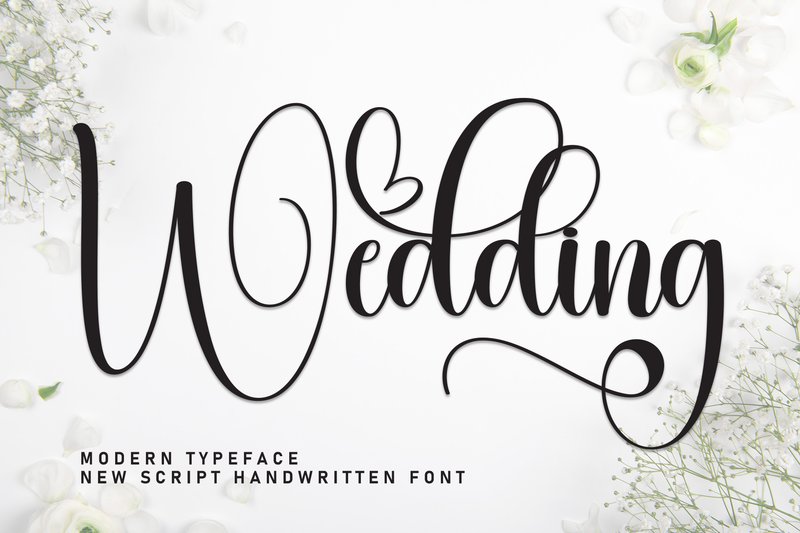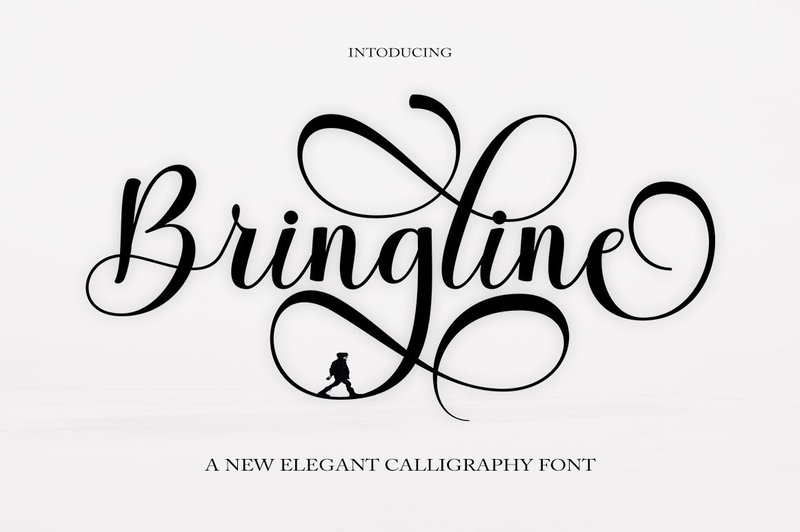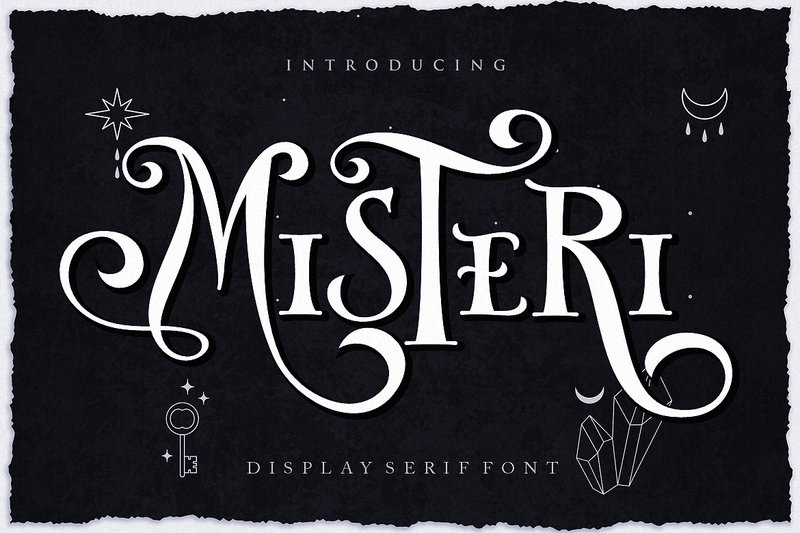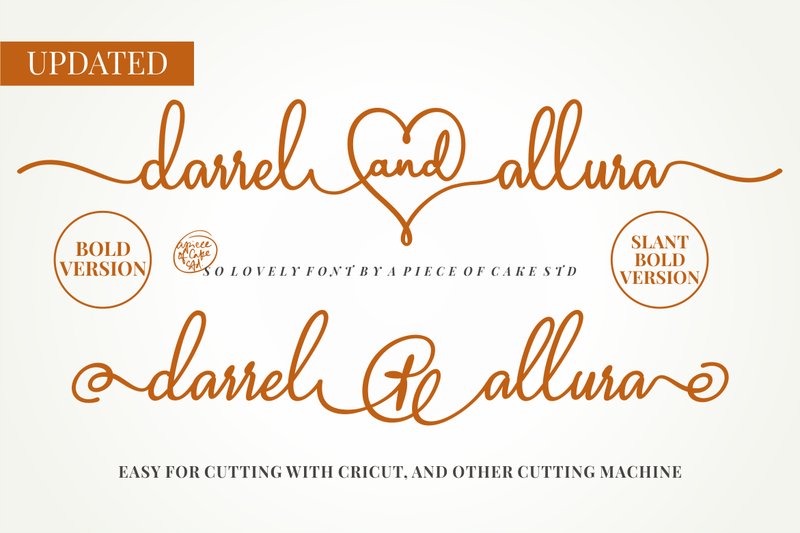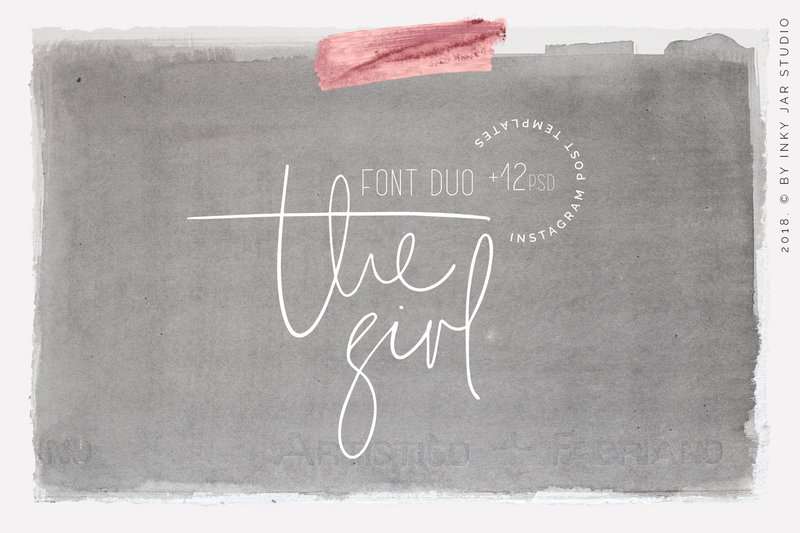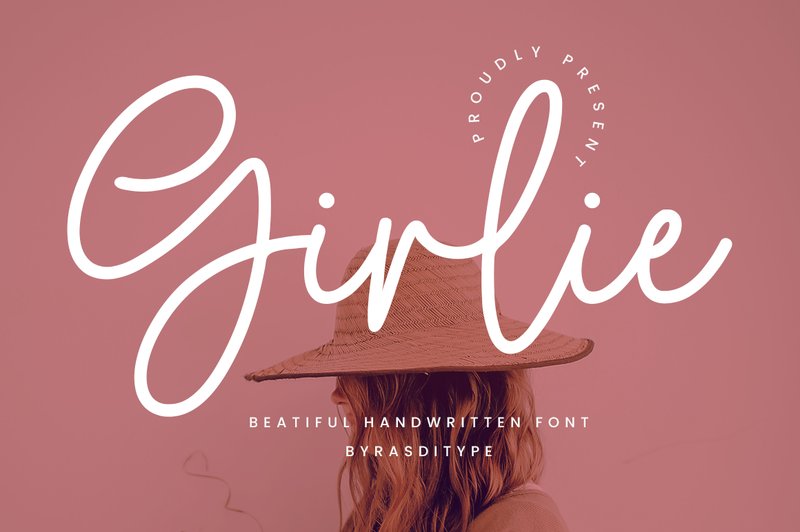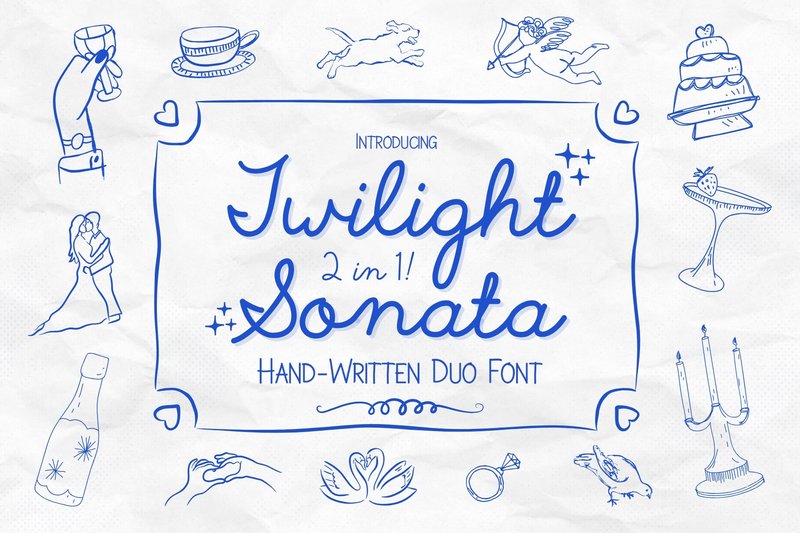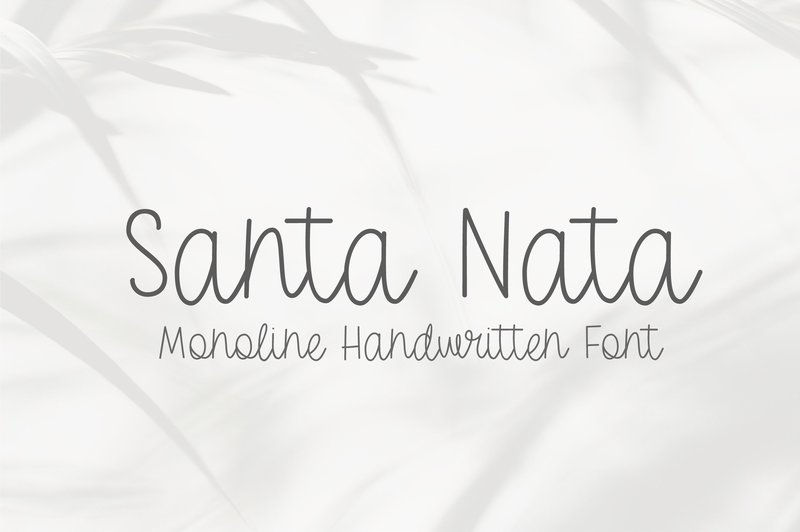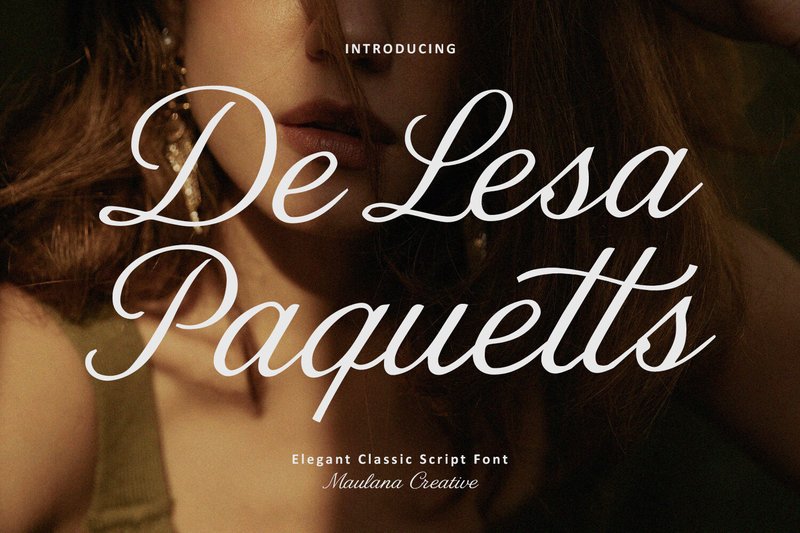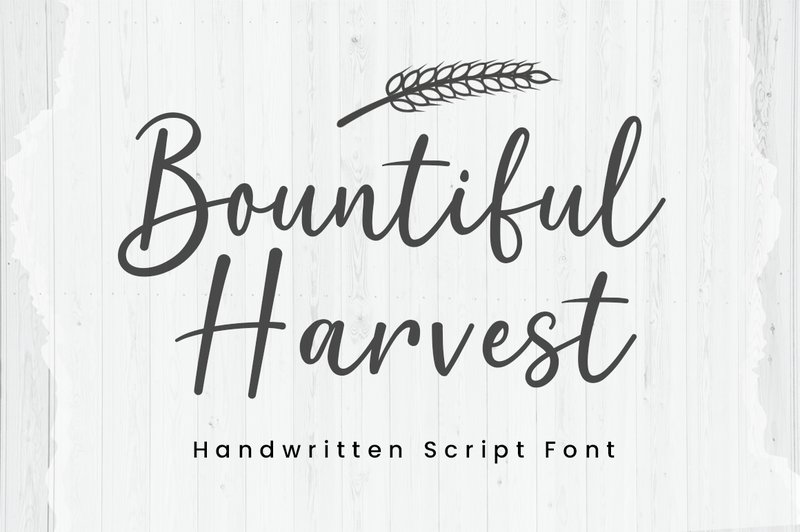
In the hyper-visual landscape of 2026, a generic font just won’t cut it. Instagram is more than just images; it’s a full-fledged branding platform where typography plays a crucial role in capturing attention. From the resurgence of retro-futuristic styles to the timeless appeal of organic, handwritten scripts, the right font is your secret weapon for creating a cohesive and memorable aesthetic. We’ve sifted through the noise to bring you this definitive collection of 79 popular, on-trend fonts that will elevate your Stories, Reels, and graphics, ensuring your content stands out and stops the scroll.
1. Wedding (by andikastudio)
Wedding (by andikastudio) is a testament to the studio’s mastery of refined typography, delivering a script font that feels both personal and incredibly polished. This font carries the graceful, flowing energy of modern calligraphy, with delicate connections and elegant swoops that mimic an artist’s hand. It strikes a beautiful balance between readability and decorative flair, making it a sophisticated choice for designers who want to add a touch of timeless romance to their work without sacrificing clarity. Its inherent charm is perfect for creating content that feels both high-end and heartfelt.
- Graceful, flowing baseline with authentic calligraphic movement
- Elegant letterforms with high-contrast strokes
- A full suite of uppercase and lowercase characters with a hand-drawn feel
- Includes stylistic alternates and ligatures to enhance its natural look
- Elegant text overlays for Instagram posts and stories
- Branding for wedding photographers, event planners, and luxury boutiques
- Designing stunning invitations, save-the-dates, and menus
- Creating signature-style logos and watermarks
2. Bringline (by hrzstudio92)
Bringline (by hrzstudio92) If you are looking for a font that feels both personal and polished, Bringline is an absolute dream. This magical script dances across the screen with a fluid, calligraphic grace that feels handwritten yet refined. Its sweeping ascenders and descenders create a captivating rhythm, turning simple text into a true piece of art and adding a touch of sophisticated charm to any visual story.
- Elegant, flowing letterforms with a calligraphic touch.
- Includes a full set of stylistic alternates and ligatures for custom flair.
- Creating signature-style logos and sophisticated brand watermarks.
- Designing heartfelt Instagram quotes and elegant story overlays.
- Crafting bespoke wedding invitations, thank you cards, and event signage.
3. Misteri (by HansCo)
Misteri (by HansCo) With its exquisitely fine strokes and an incredibly delicate feel, this script font is pure elegance in digital form. Misteri unfolds across the screen with gorgeous, mysterious swashes and intricate ligatures that feel both timeless and enchantingly modern. It’s a versatile display font that moves with a graceful, calligraphic flow, making it perfect for adding a touch of sophisticated magic to any design. It doesn’t just write words; it weaves them into a true piece of art.
- Elegant, fine-lined script style
- Intricate and mysterious decorative swashes
- A full set of stylistic ligatures for a natural flow
- Versatile display characteristics for headlines and titles
- Enchanting Instagram quotes and story branding
- Mystical or fantasy-themed projects (e.g., book covers, artisan packaging)
- Elegant wedding invitations and high-end event stationery
- Sophisticated logo designs and calligraphy-style wordmarks
4. Darrel Allura Bold (by a piece of cake)
Darrel Allura Bold (by a piece of cake) is like the first spark of a creative romance—it’s passionate, personal, and impossibly charming. This script font flows with the effortless grace of a poet’s hand, blending timeless calligraphic elegance with a bold, confident weight that feels perfectly current. It doesn’t just write words; it infuses them with a heartfelt touch, turning simple text into an intimate statement of pure artistry that demands a second look.
- A bold yet graceful script with a flowing, natural rhythm.
- Elegant calligraphic details that create a sophisticated, high-end feel.
- Smooth, clean lines that are highly readable and perfect for digital or print.
- Includes a full set of characters to support diverse creative projects.
- Creating romantic and eye-catching Instagram quotes or story overlays.
- Designing elegant wedding invitations, save-the-dates, and personal stationery.
- Crafting signature logos and branding for boutiques, photographers, or coaches.
- Adding an artisanal touch to packaging, labels, and DIY craft projects.
5. The Girl Duo (by inkyjar)
The Girl Duo (by inkyjar) feels less like a font and more like a beautifully captured piece of handwriting. The script component emulates the quick, messy-yet-stylish scrawl of a personal signature, packed with personality and ligatures that make it feel authentically human. Paired with a clean, all-caps sans-serif, this duo strikes a perfect balance between personal touch and polished design, making it a go-to for creating content that feels both intimate and refreshingly modern.
- Playful, chunky letterforms with a rounded, tactile finish.
- Unique illustrated characters, each featuring an integrated heart-flower pot doodle.
- A distinct hand-drawn, sticker-like aesthetic that feels current and personal.
- Eco-conscious branding for florists, gift shops, and sustainable businesses.
- Celebratory designs for Valentine’s Day, anniversaries, and heartfelt announcements.
- Engaging social media quotes and vibrant Instagram Story graphics that need a touch of warmth.
56. Happiest (by HansCo)